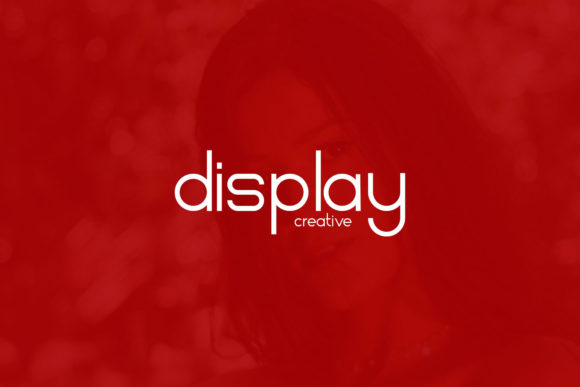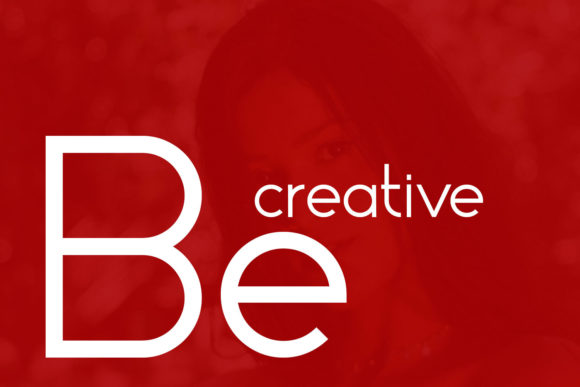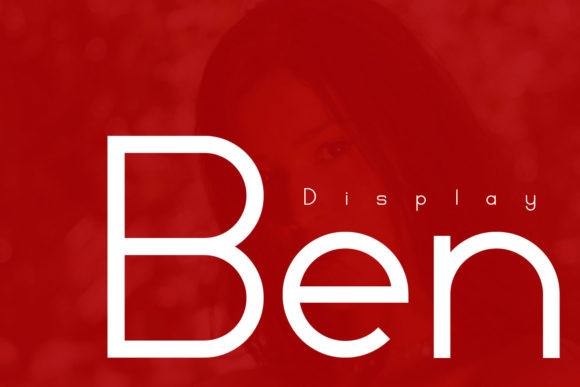
Discover the Elegance of Bennet Font: A Simple, Modern, and Slim Sans Serif Marvel
In the vast universe of typography, where fonts are the building blocks of visual communication, finding the right typeface can elevate your design from ordinary to extraordinary. For designers and crafters on the lookout for a font that embodies simplicity, modernity, and elegance, the Bennet Font stands out as a remarkable choice. Bennet is a simple, modern, and slim sans serif font designed to make a statement on any minimalistic poster, flyer, or print. In this article, we’ll explore the characteristics of the Bennet Font, its versatility, and why it should be a part of your typographic arsenal.
The Essence of Bennet Font
Bennet Font is characterized by its clean lines, straightforward design, and a slim appearance that lends itself to a wide range of applications. Its sans serif nature gives it a contemporary look that is both minimalist and sophisticated. This font is meticulously crafted to ensure that it remains legible even at smaller sizes, making it incredibly versatile for various design projects.
Key Features of Bennet Font
- Simplicity: The Bennet Font boasts a simple design that ensures your message is conveyed without any distractions. Its uncomplicated structure makes it perfect for designs where clarity is paramount.
- Modernity: With its sleek and streamlined appearance, Bennet exudes modernity. It’s ideal for designers looking to infuse their work with a fresh and current vibe.
- Slim and Elegant: The slim nature of Bennet gives it an elegant feel, making it suitable for high-end branding, fashion magazines, and any project that requires a touch of sophistication.
- Versatility: Whether you’re working on a minimalistic poster, a sleek flyer, or any print material, Bennet adapts seamlessly. Its versatility is one of its most compelling features, allowing designers to experiment with various layouts and designs.
Applications of Bennet Font
The applications of Bennet Font are vast and varied. Here are a few ideas to get you started:
- Posters and Flyers: The clean and modern look of Bennet makes it an excellent choice for posters and flyers. It can help draw attention and convey information in an aesthetically pleasing way.
- Branding and Logotypes: For brands aiming for a sleek and contemporary image, Bennet can be a valuable asset. Its simplicity and elegance make it suitable for logotypes and brand names.
- Digital Media: While Bennet excels in print, its clarity and readability also make it a good candidate for digital media, including website headers, digital magazines, and social media graphics.
- Packaging: For product packaging, especially for brands in the fashion, tech, or beauty industries, Bennet can add a touch of modern sophistication.
Tips for Using Bennet Font Effectively
To make the most of Bennet Font, consider the following tips:
- Pair with Complementary Fonts: While Bennet is stunning on its own, pairing it with complementary fonts can add depth and interest to your designs.
- Experiment with Sizes: Don’t be afraid to experiment with different sizes to create visual hierarchy and emphasize key information.
- Play with Colors: Bennet’s simplicity makes it a great canvas for creative color choices. Use color to evoke emotion and guide the viewer’s eye.
Bennet Font is a versatile and stylish addition to any designer’s toolkit. Its simplicity, modernity, and slim appearance make it an excellent choice for a wide range of projects, from minimalistic posters and flyers to sophisticated branding and digital media. By incorporating Bennet into your designs, you can achieve a clean, contemporary look that is sure to captivate your audience. Explore the endless possibilities with Bennet Font and elevate your designs to new heights of elegance and sophistication.